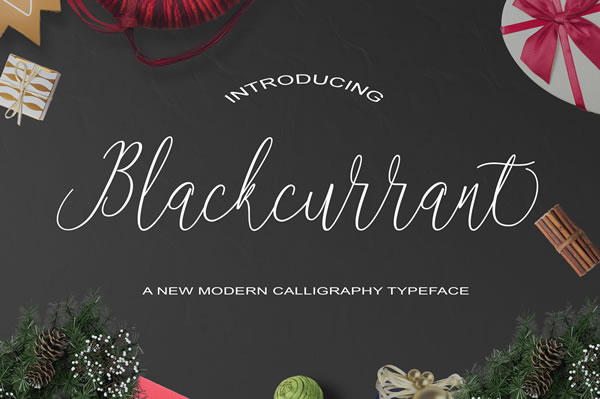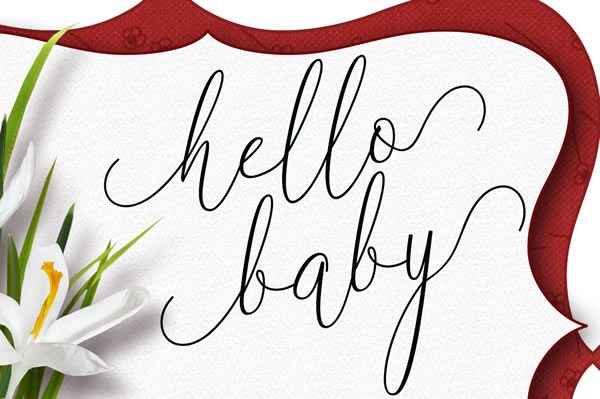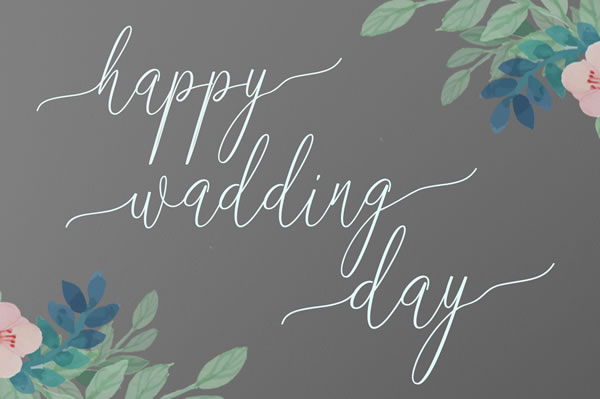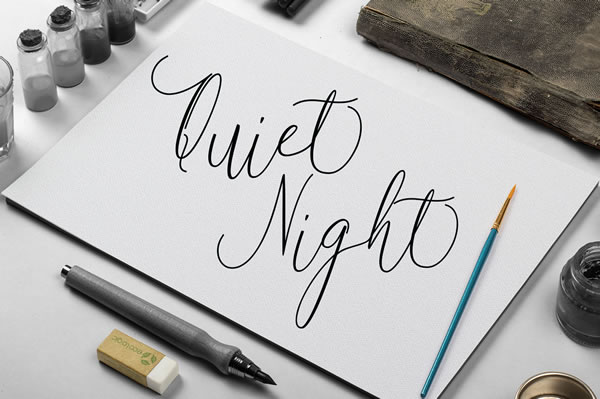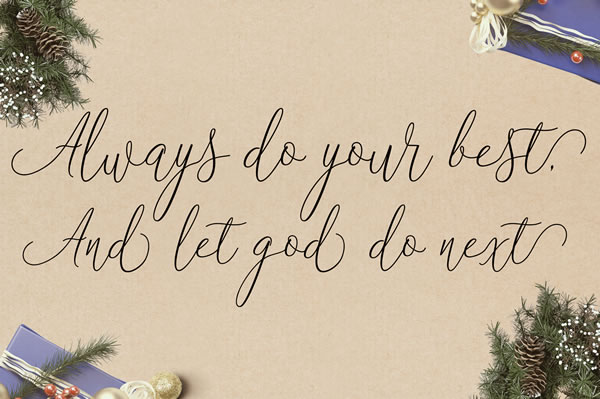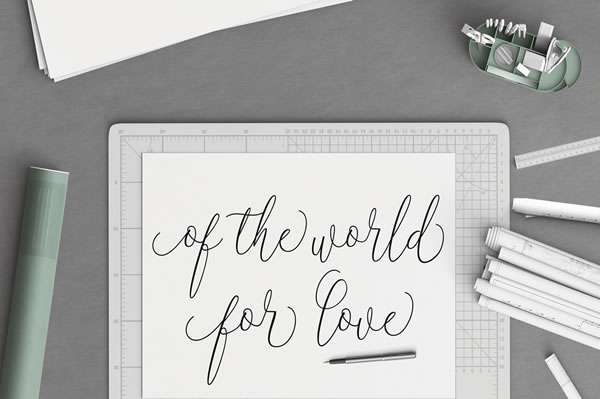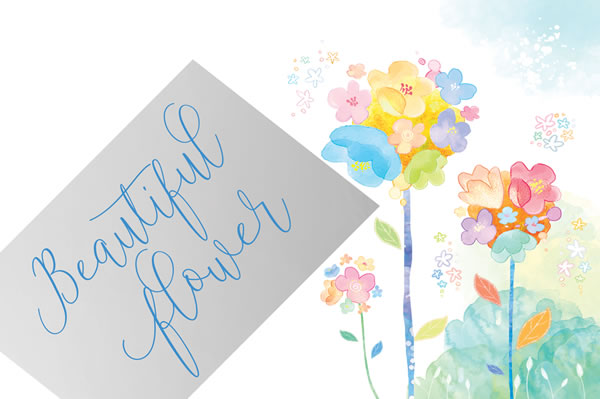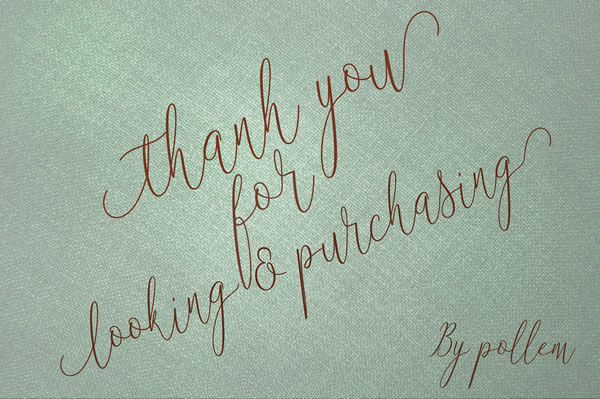
Blackcurrant Font
About Blackcurrant Font
Blackcurrant is a thin script font that features a varying baseline. The thin smooth lines feel elegant and work great on invitations (and much more designs).
The Blackcurrant script features over 420 unique glyphs and has 204 alternate characters to offer. This includes initial and terminal letters, alternates, ligatures and multilingual support.